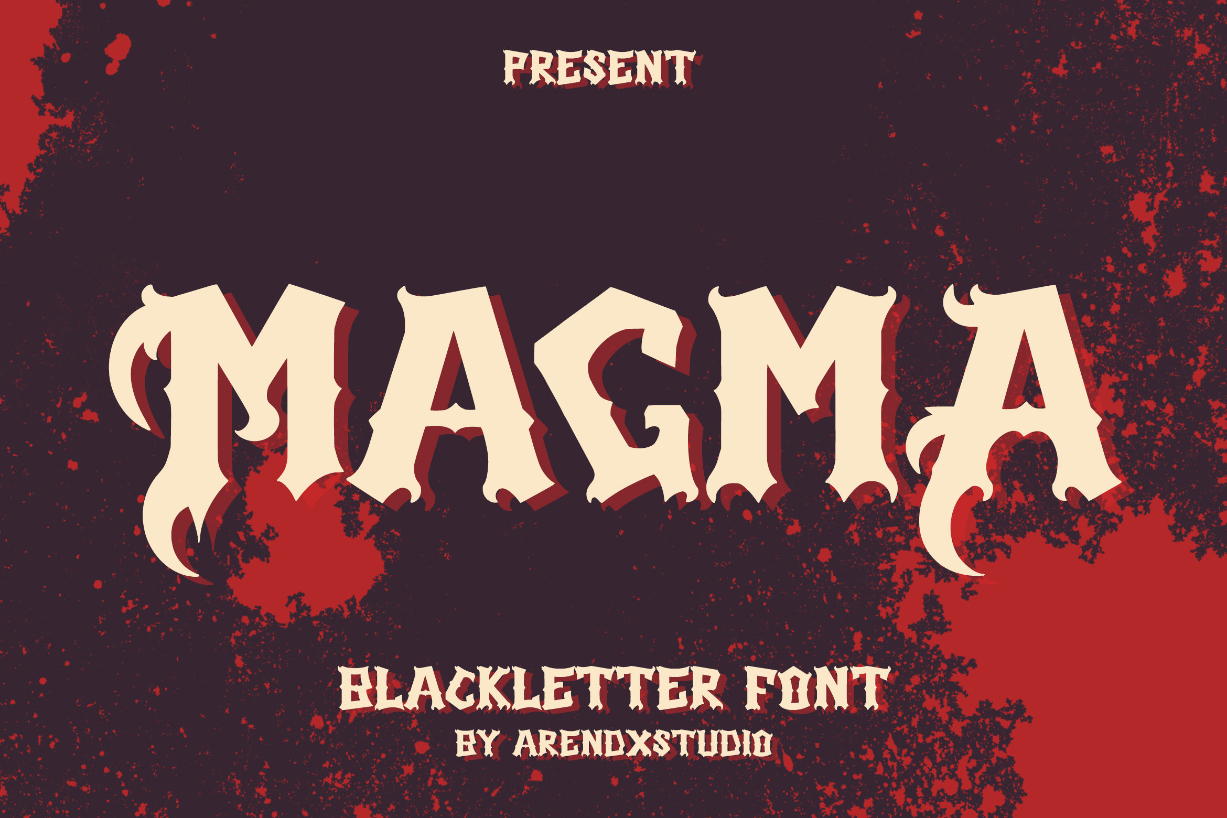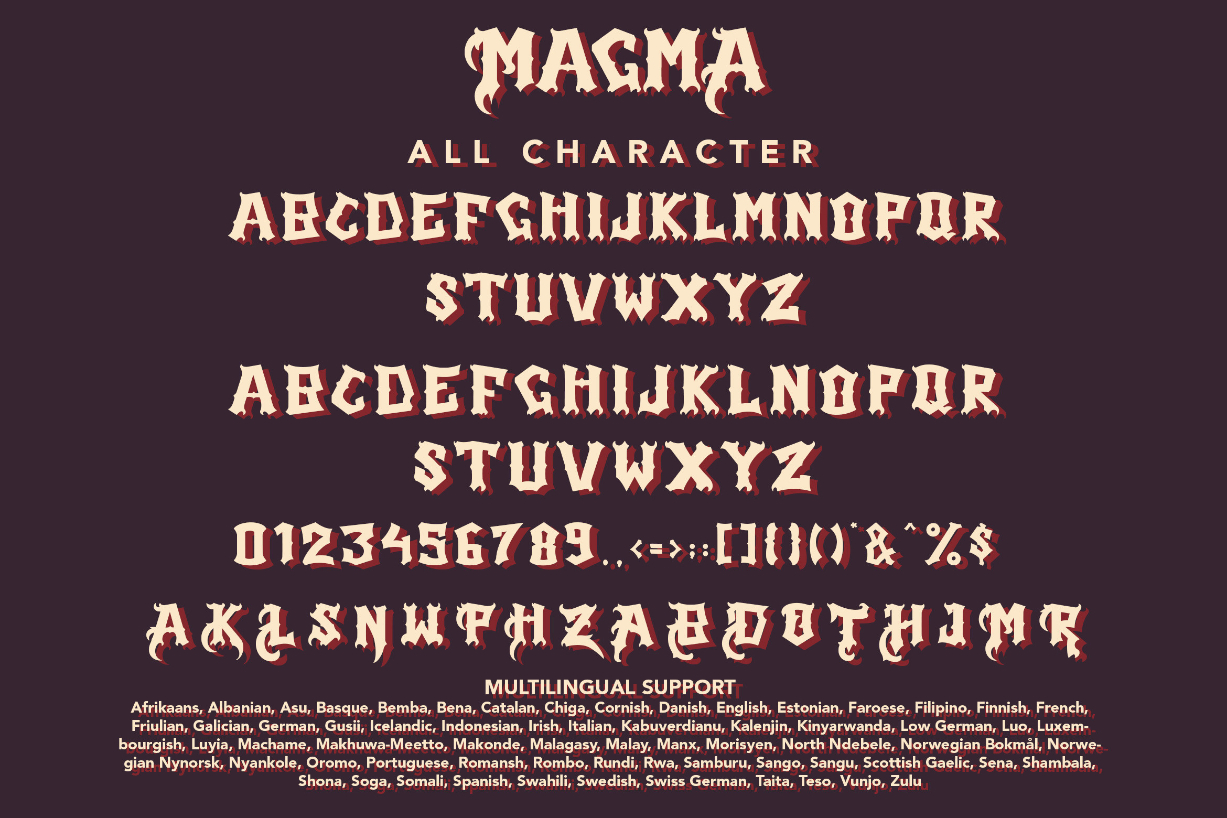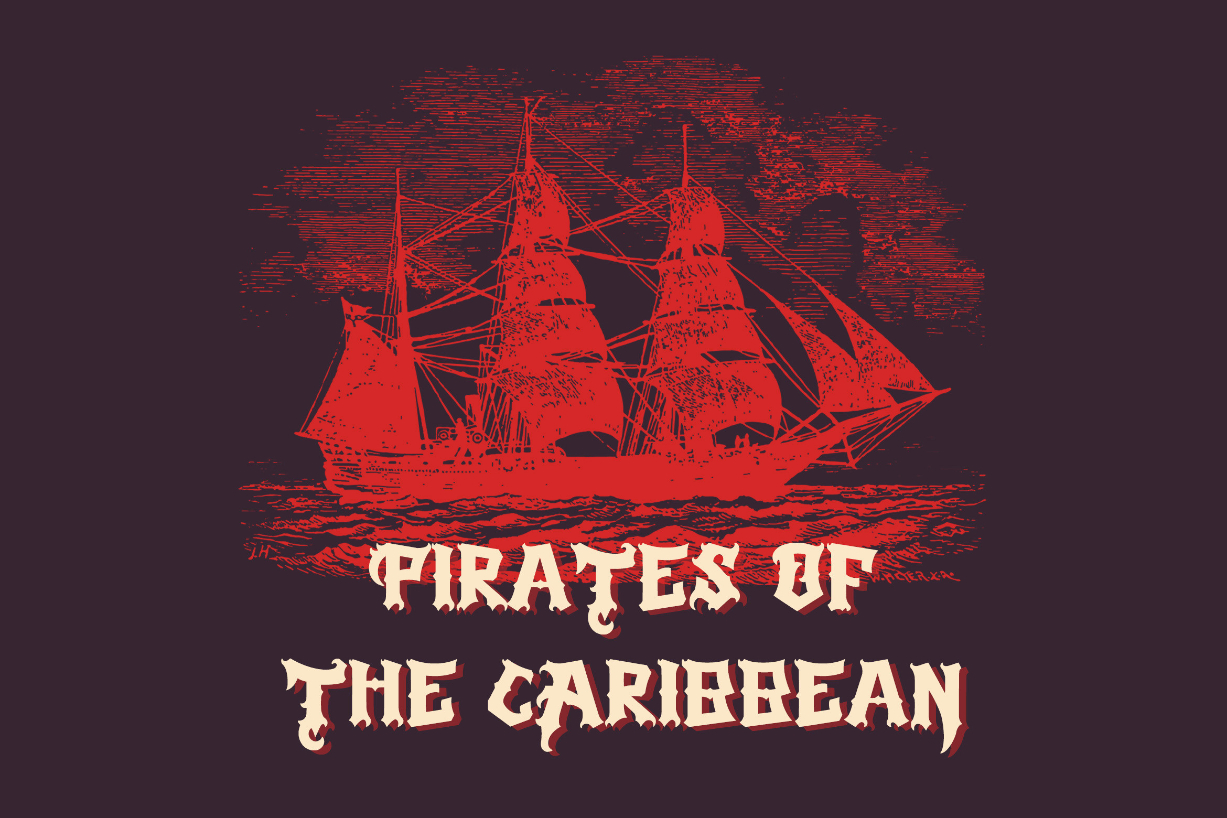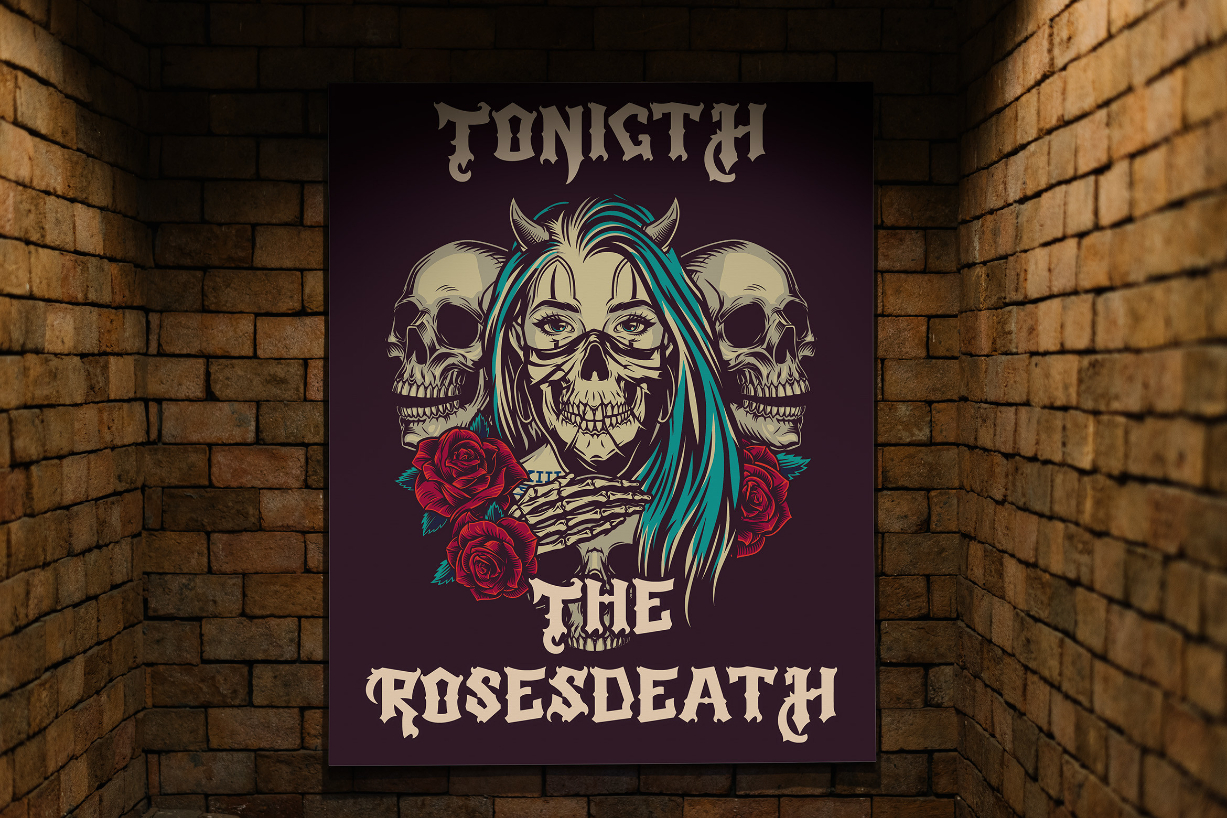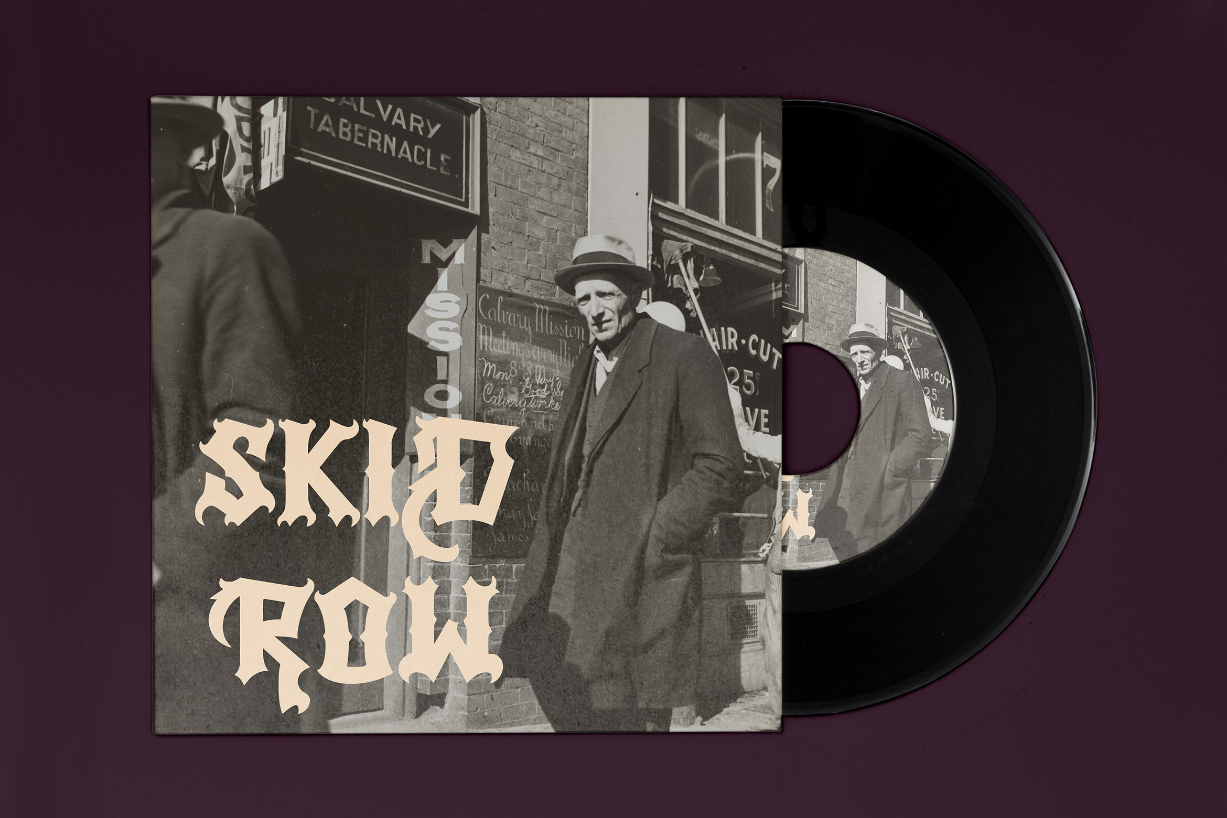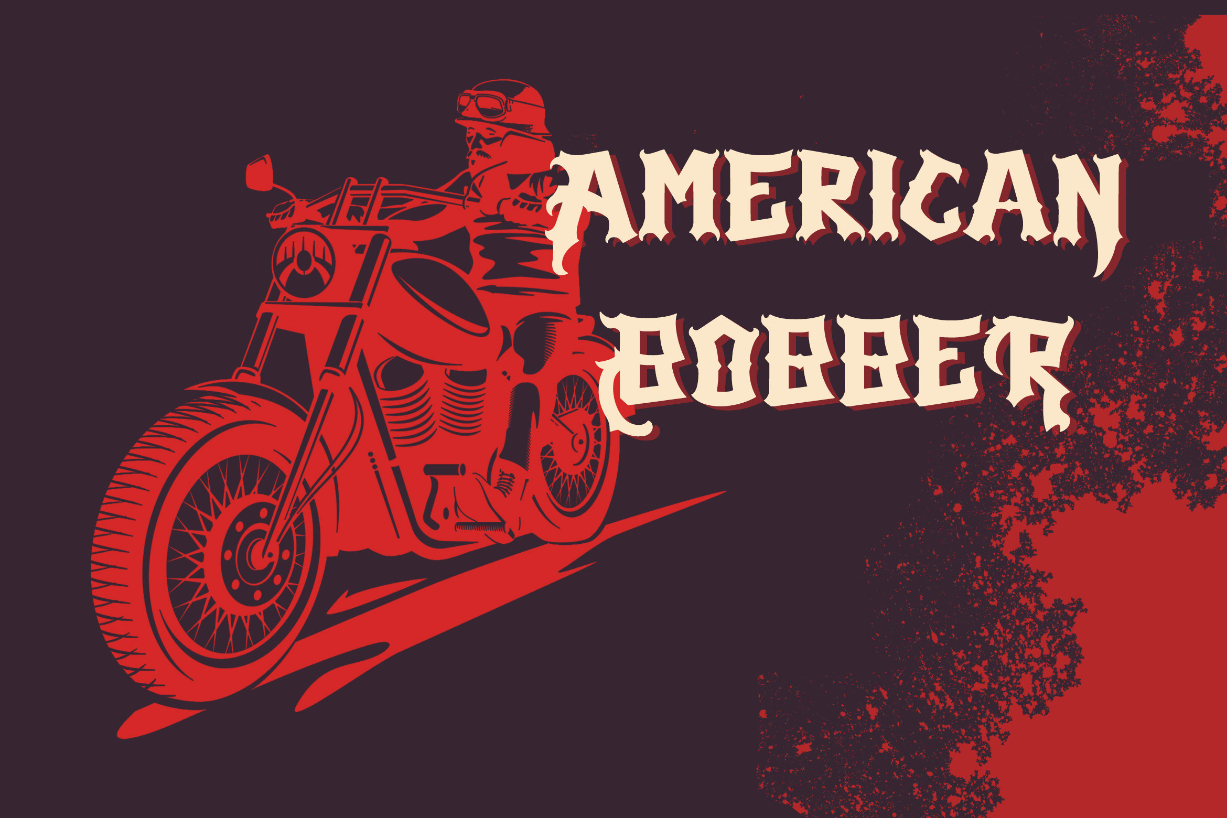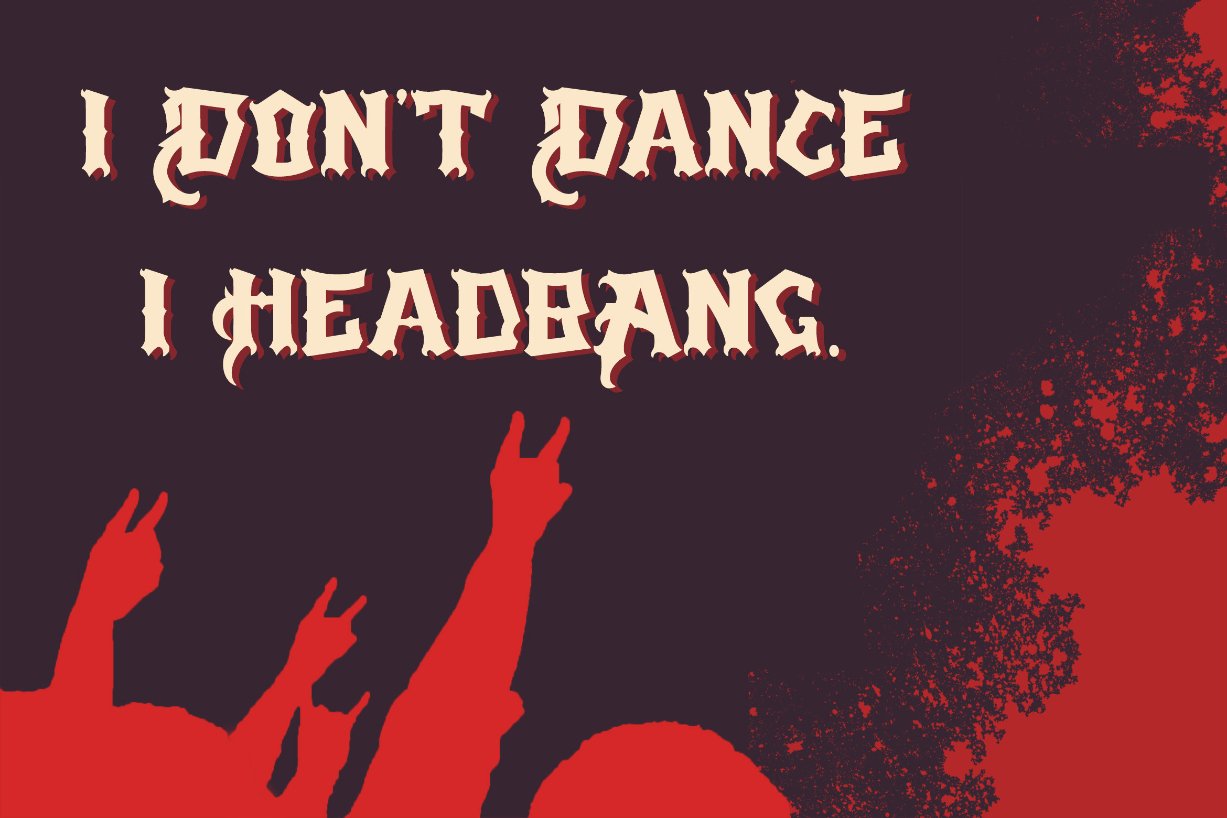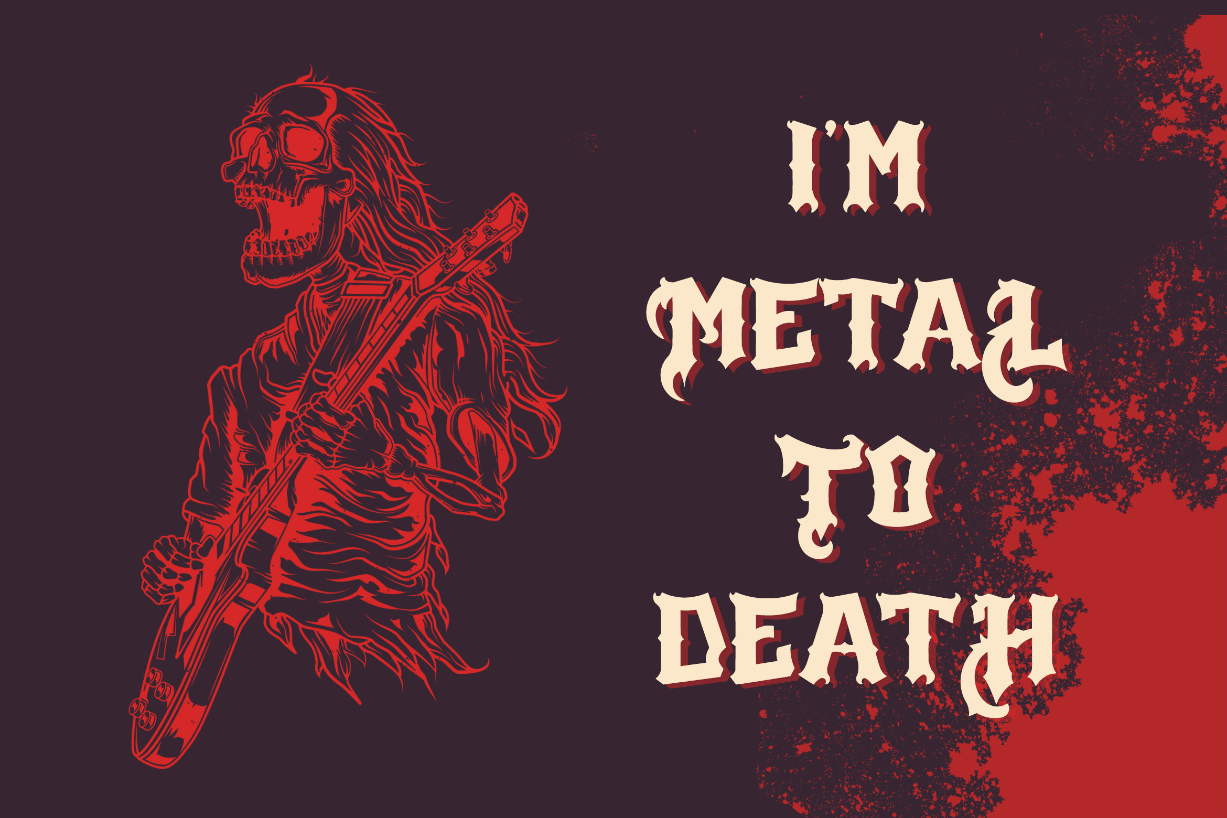
Magma Font
About Magma Font
Magma is a bold, spooky and dramatic blackletter font. It can be employed to a variety of designs that require a creepy touch.